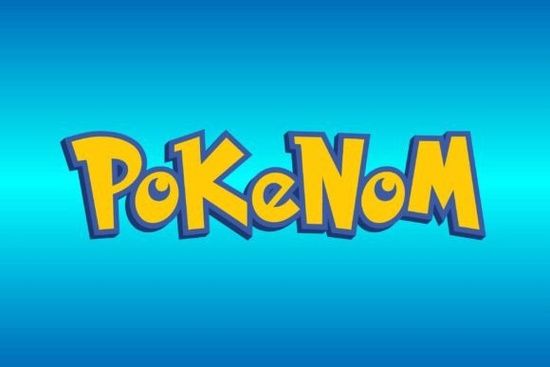
Designers, crafters, and small business owners often look for unique fonts that can make their projects stand out. The Pokenom Font is one such typeface that blends gothic elements with a playful, cartoonish style. It’s perfect for adding a bold, eye-catching touch to anything from movie titles to T-shirt designs. Whether you're working on a creative hobby project or a professional print-on-demand venture, this font offers a versatile solution.
The Pokenom Font features 96 meticulously crafted glyphs and 95 characters, making it a rich resource for typography. Its decorative nature allows users to transform simple text into visually engaging expressions. This makes it ideal for branding, graphic design, and any project that benefits from a distinctive visual identity. The font’s gothic influence adds an edgy feel, while its cartoon quality keeps it approachable and fun.
What Makes Pokenom Stand Out?
One of the key strengths of the Pokenom Font is its balance between style and usability. It doesn’t just look good it works well in a variety of contexts. For example, it can be used to create memorable logos, eye-catching headlines, or even custom illustrations. Its versatility means it can fit into different design styles without feeling out of place.
Another advantage is how easy it is to work with. The font is designed with clarity in mind, ensuring that each character is legible even at smaller sizes. This is especially important for applications like T-shirt printing or signage, where readability is crucial. At the same time, the decorative elements add a layer of artistic flair that can elevate the overall look of a design.
Best Uses for Pokenom Font
For movie titles and game names, the Pokenom Font brings a sense of excitement and energy. It’s great for creating a visual identity that matches the tone of a film or video game. The font’s bold strokes and intricate details make it ideal for posters, banners, and promotional materials.
In the realm of T-shirt design, the Pokenom Font can help create unique, attention-grabbing graphics. Whether you’re designing for a niche audience or a broader market, this font provides a way to express creativity without relying on generic typefaces. It also works well for customizing merchandise, such as mugs, bags, and stickers.
For small businesses and print-on-demand sellers, the Pokenom Font offers a way to differentiate their products. By using a distinctive font, they can create a brand image that stands out in a crowded marketplace. This can lead to increased customer engagement and better sales performance.
How to Get the Most Out of Pokenom
To make the most of the Pokenom Font, start by experimenting with different text sizes and layouts. Try pairing it with other fonts to see how it interacts in a design. You might find that it works well with more traditional typefaces, creating a balanced and dynamic composition.
It’s also helpful to explore the font’s full range of characters. Some glyphs may have special meanings or visual effects that can enhance your design. Don’t be afraid to play around with spacing, color, and texture to bring out the font’s unique qualities.
Whether you're a seasoned designer or just starting out, the Pokenom Font is a valuable addition to your toolkit. Its combination of gothic and cartoon elements makes it both unique and functional. With the right approach, it can help you create designs that are not only visually appealing but also meaningful and impactful.
Before finalizing your project, take a moment to review your use of the font. Ensure that it aligns with your overall design goals and that it enhances, rather than distracts from, the message you want to convey. A thoughtful approach will help you get the most out of this versatile typeface.